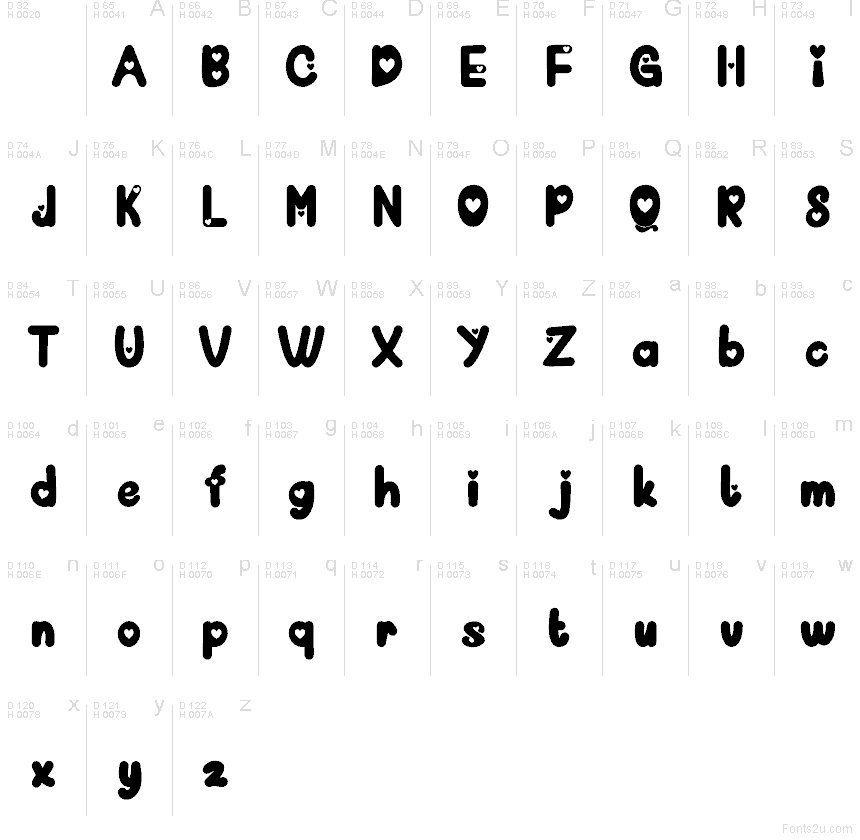
Heart Sweet
Heart Sweet font by Koplexs Studio is a free valentine script typeface that turns every word into a bubbly love note. Thick, rounded strokes and heart-shaped counters feel soft and candy-like, as if piped in frosting across your layout. The letters sit close and cozy, giving your text a warm, handwritten charm that instantly says “romance,” without feeling stuffy or formal.
Using Heart Sweet, your holiday projects gain a playful, affectionate voice that shines on greeting cards, wedding signage, Valentine’s party invites, social media posts, packaging, and kids’ printables. This free font works beautifully in larger sizes where its hearts and curves can breathe; pair it with a clean, light sans serif for body copy to keep everything sweet but readable.